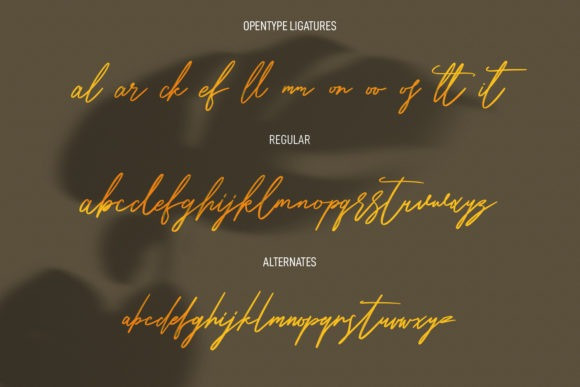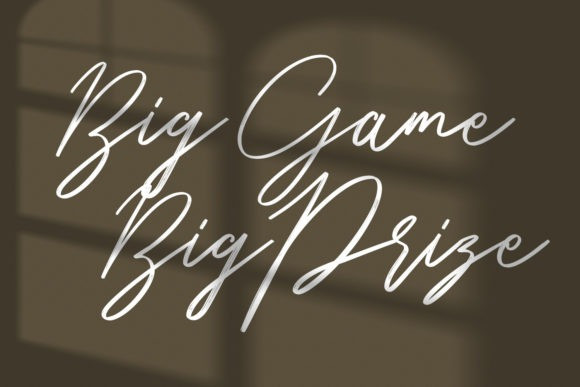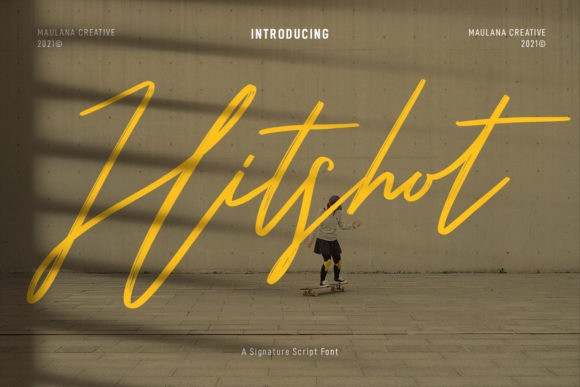
Hitshot Font
Hitshot Script Font is a stylish and elegant script font. It looks stunning on wedding invitations, thank you cards, quotes, greeting cards, logos, business cards and every other design which needs a customized touch.